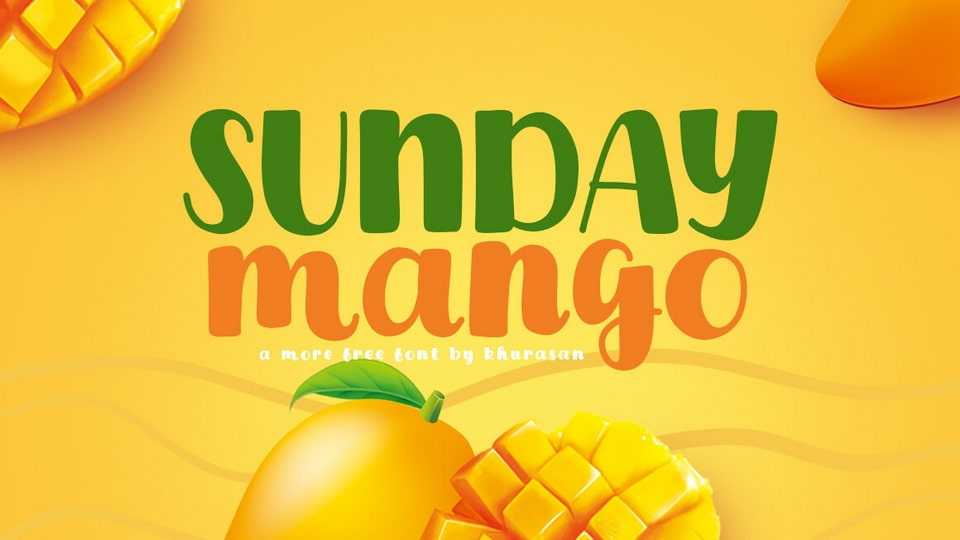
Download Sunday Mango font, a playful and fancy hand drawn typeface that infectious sense of delight to your designs. Sunday Mango is the font to infuse your projects with a dash of childlike wonder, and a sprinkle of carefree creativity.